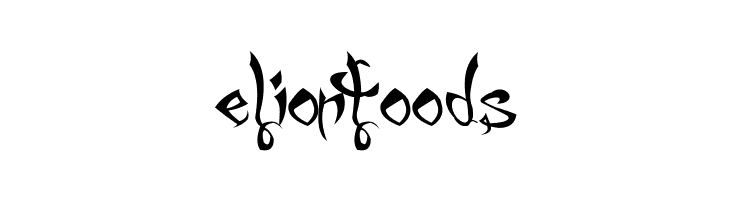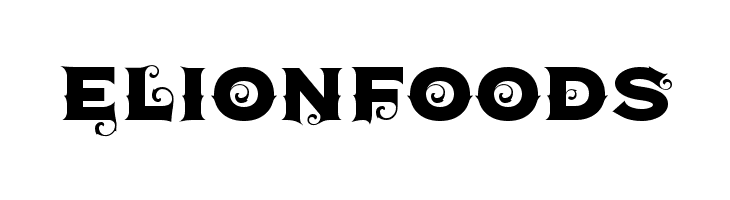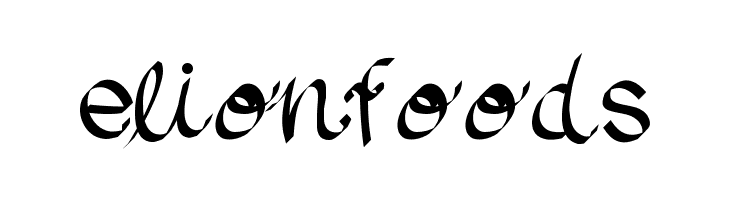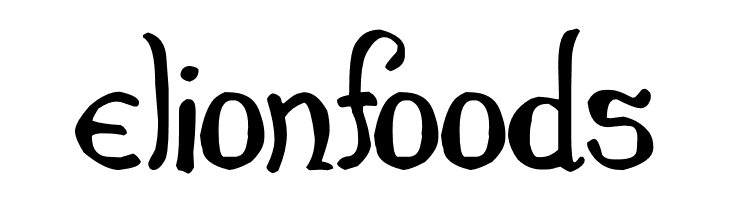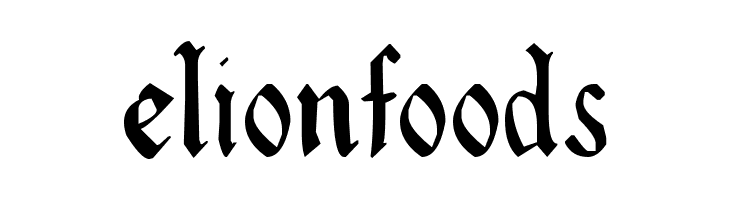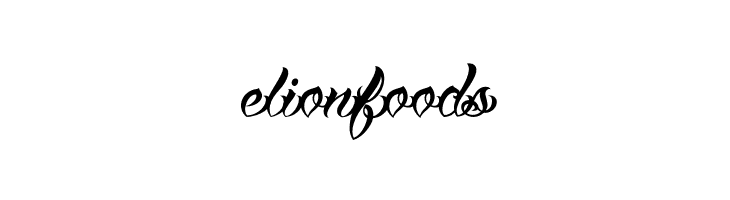
A bold, decorative font with intricate swirls and flourishes.
An ornate and decorative font with intricate curves and flourishes.
A bold, gothic-style font with sharp, angular lines and medieval flourishes.
An ornate and decorative font with intricate swirls and flourishes.
A decorative blackletter font with intricate flourishes and high contrast.
An elegant, cursive font with ornate flourishes and a classic calligraphy feel.
A decorative and tattoo-inspired font with intricate swirls and flourishes.
An ornate, tattoo-inspired script font with decorative flourishes.
An ornate script font with intricate loops and flourishes, reminiscent of traditional calligraphy.